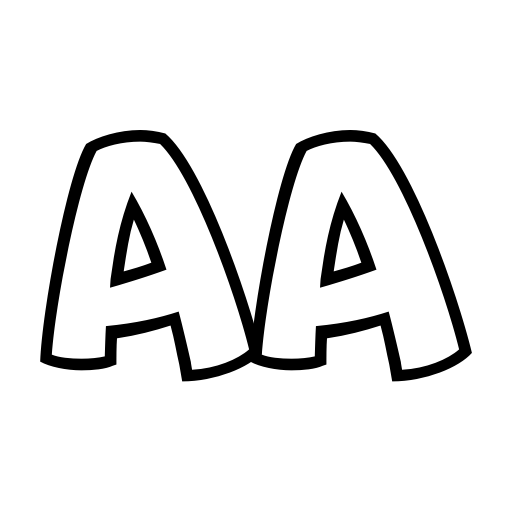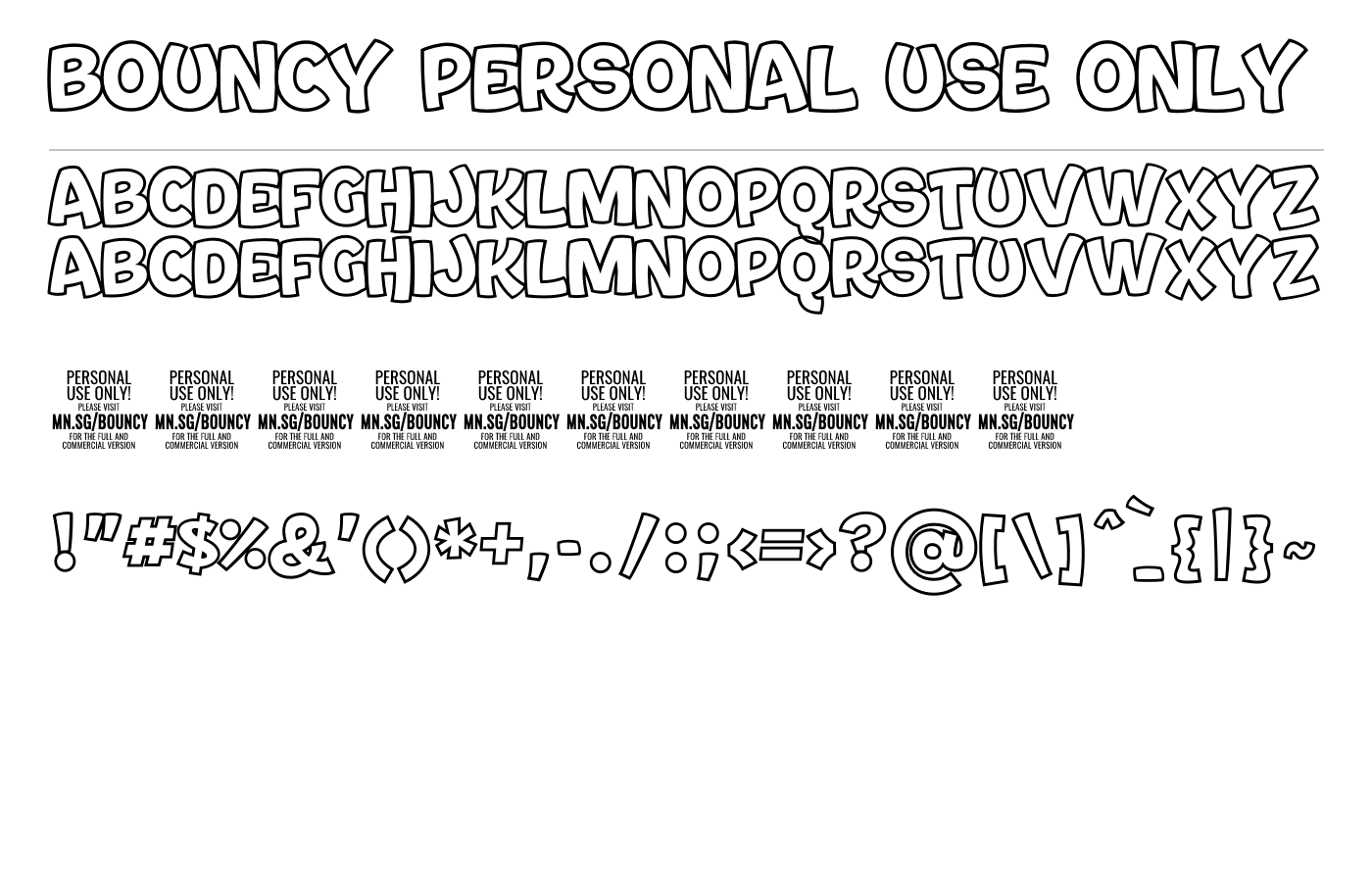
Bouncy Font is a playful, bold sans serif typeface with a hand-drawn feel, characterized by its uneven, lively letterforms that give an energetic and informal vibe. Its thick strokes and quirky shapes make it perfect for children’s designs, fun branding, and casual headlines, adding a sense of joy and creativity to any project. This font works best in eye-catching displays where a friendly and approachable look is desired.
Bouncy Font
About Bouncy Font
| Font family | Bouncy Font |
| Font subfamily | Thin |